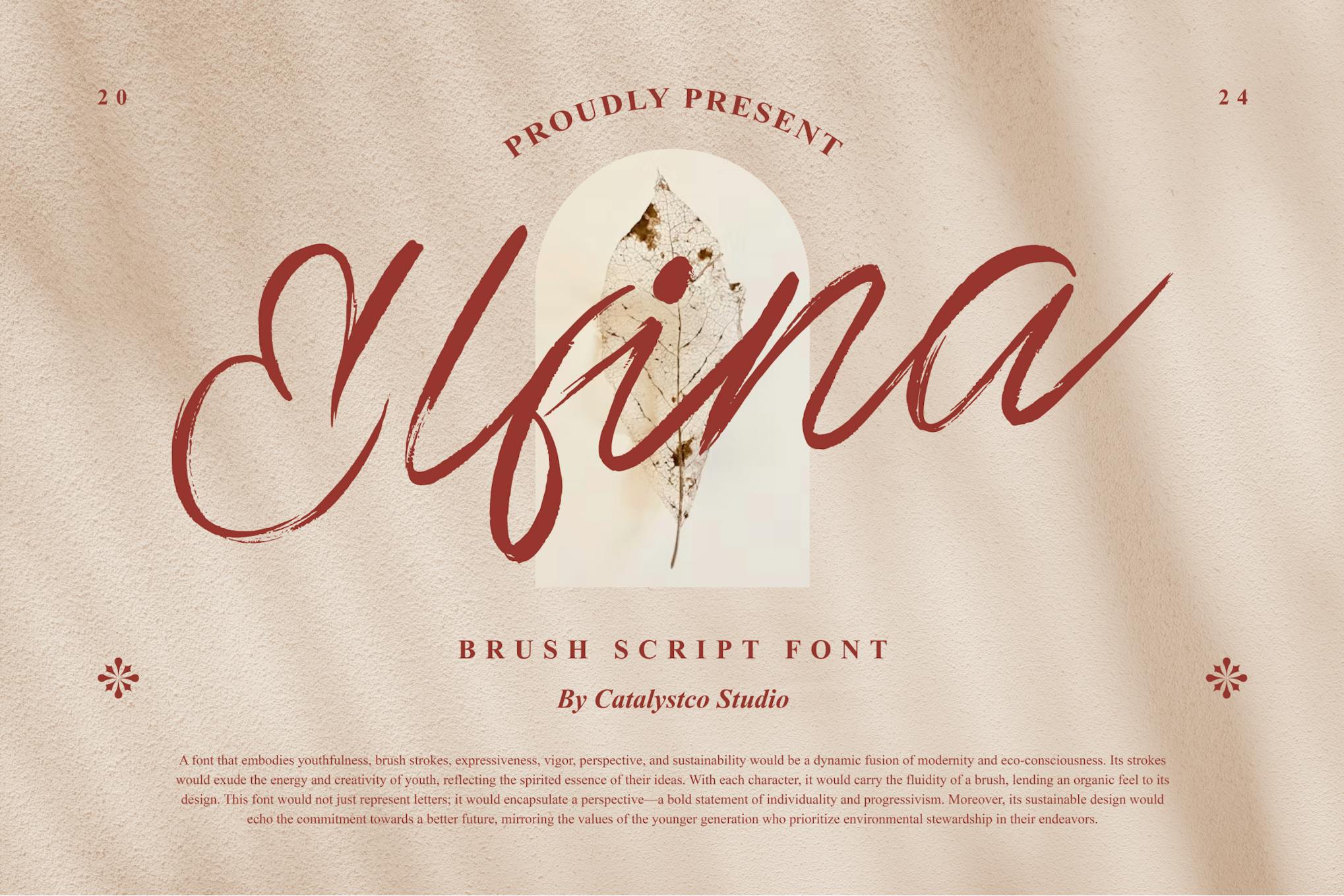
Elfina Brush Script Font
The Elfina Brush Script Font is perfect for artistic logo designs, creative branding projects, handmade product packaging, bohemian wedding invitations, artisan craft signage, inspirational quote graphics, organic beauty product labels, trendy social media content, boutique store branding, and expressive typography artwork.
What makes the Elfina Brush Script Font so exciting is its authentic brush stroke texture combined with flowing, organic letterforms that capture the spontaneous energy of hand-painted artwork. This captivating typeface features natural brush variations, expressive character movement, and artistic imperfections that create a genuine handcrafted appearance perfect for projects seeking authentic creativity and artistic soul. The font's dynamic flow and painterly quality make it an exceptional choice for brands wanting to communicate artistic passion, authenticity, and creative freedom.
The Elfina Brush Script Font family includes stylistic alternates and ligature options, featuring multiple character variations, decorative swashes, and contextual alternates. Each variation maintains the signature brush-painted charm while offering different levels of artistic expression and flourish detail, giving designers extensive creative possibilities for customizing text and achieving unique visual storytelling.
This exceptional Elfina Brush Script Font Free Download represents the ideal typography choice for designers who want to infuse their projects with authentic artistic expression and handcrafted beauty. Whether you're creating artisan brand identities, developing creative marketing materials, or designing inspirational content, this versatile brush script delivers compelling results that resonate with audiences seeking genuine artistic authenticity.
The distinctive brush characteristics of Elfina Brush Script Font showcase masterful script design, with each letter featuring natural paint texture variations and organic stroke endings that enhance its handmade appeal. The font's comprehensive character set includes uppercase and lowercase letters, numerals, punctuation marks, and artistic symbols, ensuring complete functionality for diverse creative projects and international applications.
Perfectly suited for both digital and print applications, this remarkable font maintains its expressive brush texture and artistic integrity across various sizes and formats. From large-scale murals to delicate packaging details, Elfina Brush Script Font adapts beautifully to any creative challenge while preserving its distinctive painterly character and artistic spontaneity.